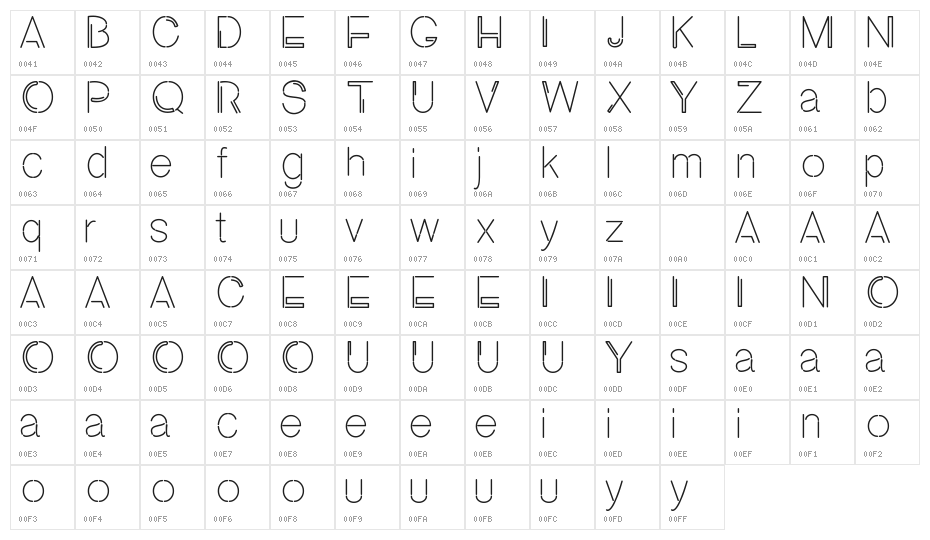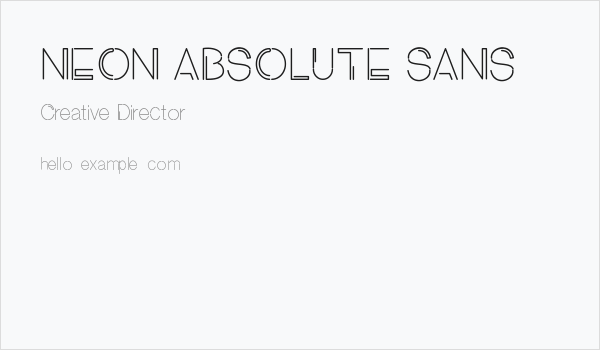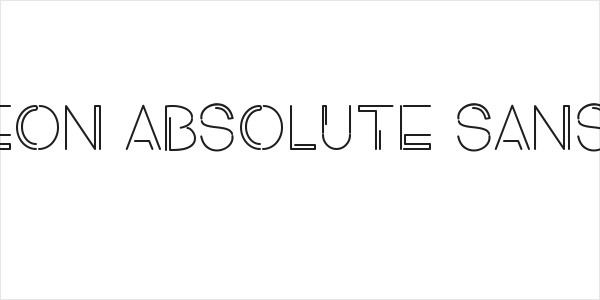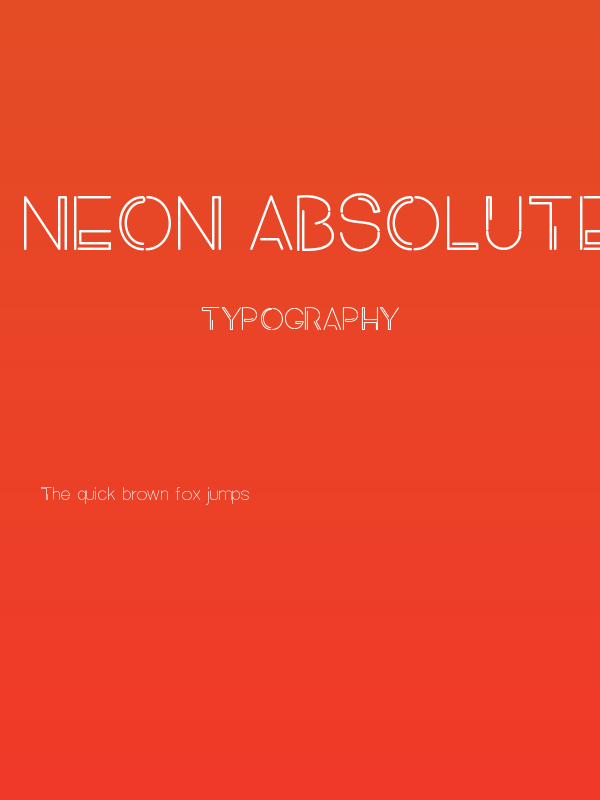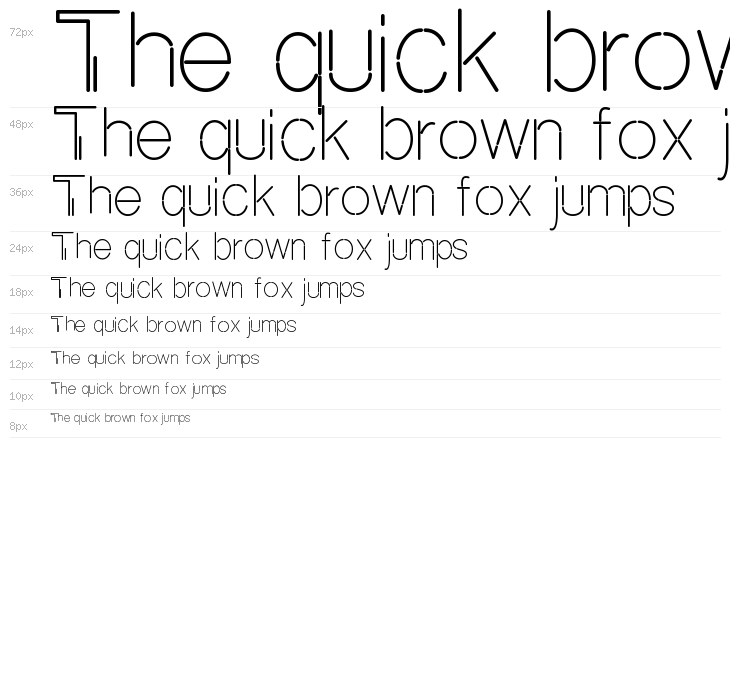
NEON ABSOLUTE SANS 1 Font
NEON ABSOLUTE SANS 1 Description
This font features a modern and sleek design with a geometric structure. The characters are outlined, giving a neon-like appearance that is both futuristic and stylish. The uppercase and lowercase letters maintain a consistent height and width, providing a uniform look. The font's clean lines and open spaces enhance readability while adding a unique visual appeal. Its minimalist design makes it suitable for contemporary projects that require a touch of elegance and sophistication.
| Use Case | Headlines, Logos, Digital Media |
| Proposed Projects | Ideal for branding, digital media, signage, and futuristic design projects. |